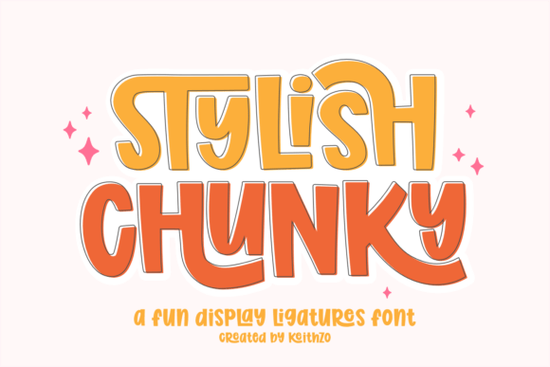
When you need a typeface that grabs attention without feeling overly aggressive, finding the right balance of weight and personality is key. The Stylish Chunky Font offers exactly that, combining thick, rounded curves with a retro-modern feel. It is built specifically for projects that need a loud, joyful statement, making it a favorite among print-on-demand sellers and graphic designers looking for reliable display typography.
How do the built-in ligatures actually work?
What makes this typeface stand out from standard bold fonts is its creative ligature features. Instead of just typing letters side-by-side, the characters connect seamlessly when you enable the OpenType feature in your design software. This gives your text a custom, hand-lettered appearance without needing advanced illustration skills or manual vector adjustments. It is especially useful for creating smooth, flowing connections out of heavy block letters. For crafters using software like Illustrator or Canva, simply highlighting your text and turning on the ligature setting will instantly transform a basic word into a cohesive, stylized graphic. This saves hours of manual tweaking when you are on a tight deadline.
What types of projects work best with this typeface?
Because of its heavy weight and rounded edges, it shines in specific applications where visibility and personality are the main goals. Here is where you will get the best results:
- Apparel and Merch: The thick lines hold up beautifully when printed on t-shirts, hoodies, or tote bags, ensuring the design doesn't get lost in the fabric texture.
- Stickers and Labels: The retro-modern aesthetic makes product packaging and vinyl stickers stand out clearly on a crowded shelf.
- Social Media Graphics: Its bold presence ensures quotes, announcements, and sale banners are easy to read on small mobile screens.
Is it easy to read at smaller sizes?
Display fonts are usually meant for large headlines, but the rounded curves and generous spacing in this specific typeface help maintain legibility even when scaled down. While you should still avoid using it for long paragraphs of body text, it works wonderfully for short phrases, sub-headers, and logos. The lack of sharp, intricate serifs means the letters won't blur together when printed small. If you need a highly traditional option for formal branding, you might compare it against the Black Vintage style, which leans more into classic elegance rather than modern chunkiness.
What languages and characters are included?
You get a complete toolkit with full sets of uppercase, lowercase, numbers, and essential punctuation. It also supports multiple languages, which is crucial if you are designing for an international audience or creating multilingual packaging for a small business. This broad character set means you won't run into missing glyphs or awkward substitutions when typing out standard phrases in various European languages. For projects needing a more classical or historical feel, designers often pair chunky modern styles with something like the Greek Odyssey to create a striking visual contrast in their layouts.
Quick tips for using heavy display typography
- Test your ligatures: Always type out your phrase and toggle the ligature feature on and off to see which version looks best for your specific layout and spacing.
- Mind the kerning: Even with automatic connections, manually adjust the spacing between different words to ensure the overall block of text feels balanced and visually appealing.
- Check print contrast: When designing for merchandise, ensure the font color contrasts sharply with the fabric or background color so the thick lines remain crisp and readable.
Before finalizing your files, always export a test print or view your design at actual size on your screen to confirm the heavy weight delivers the exact impact you want for your brand.